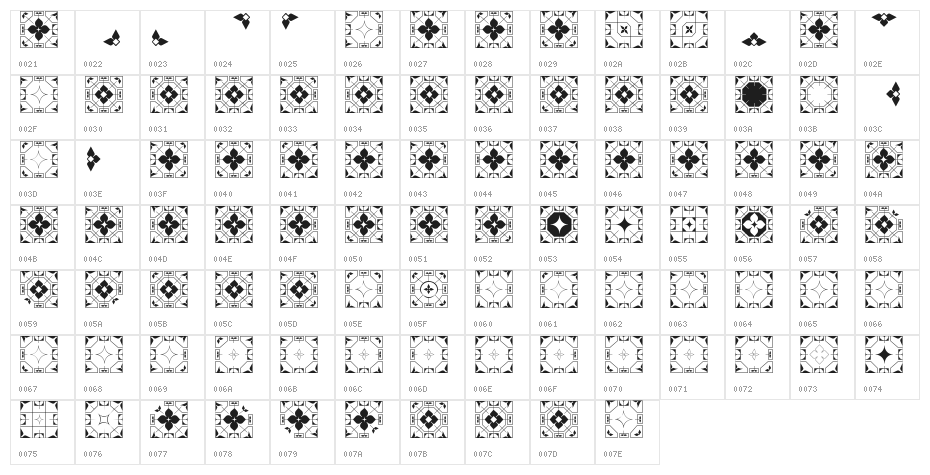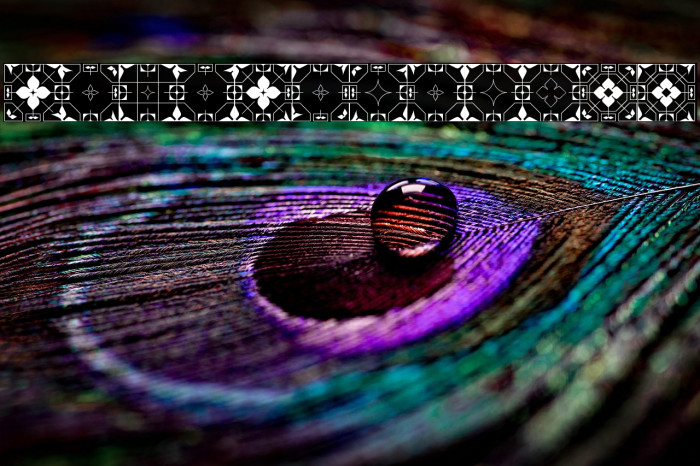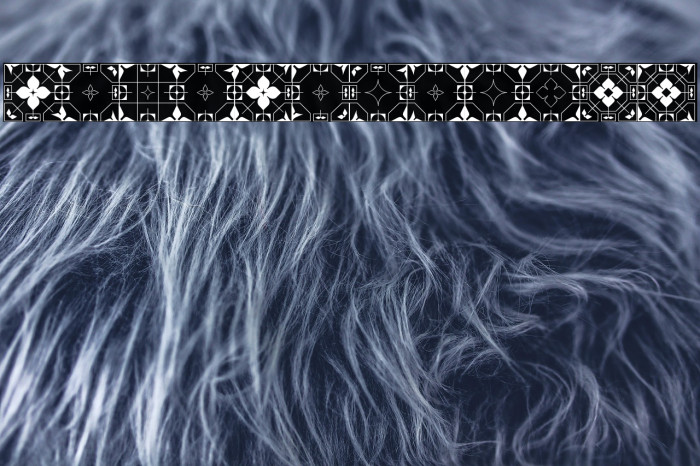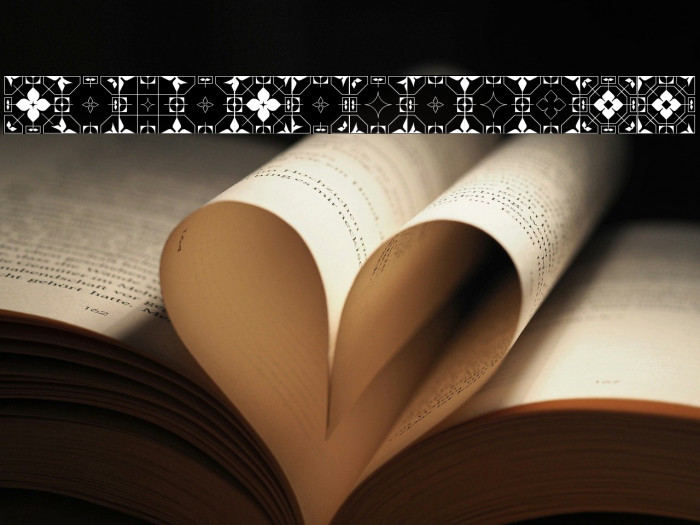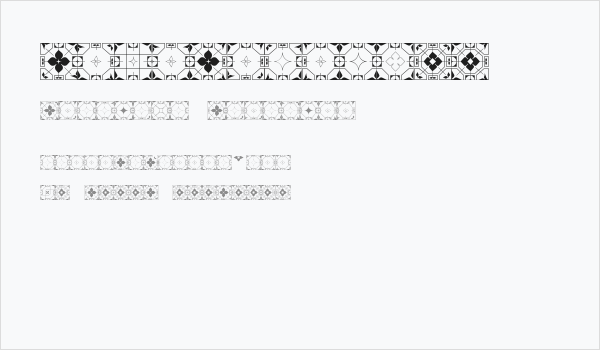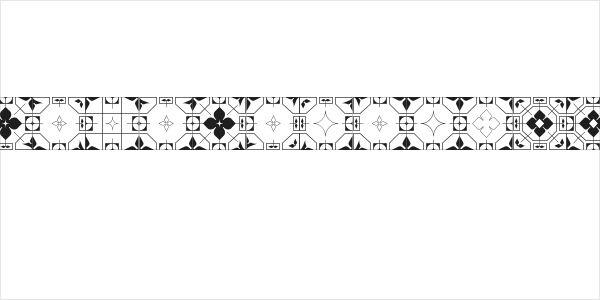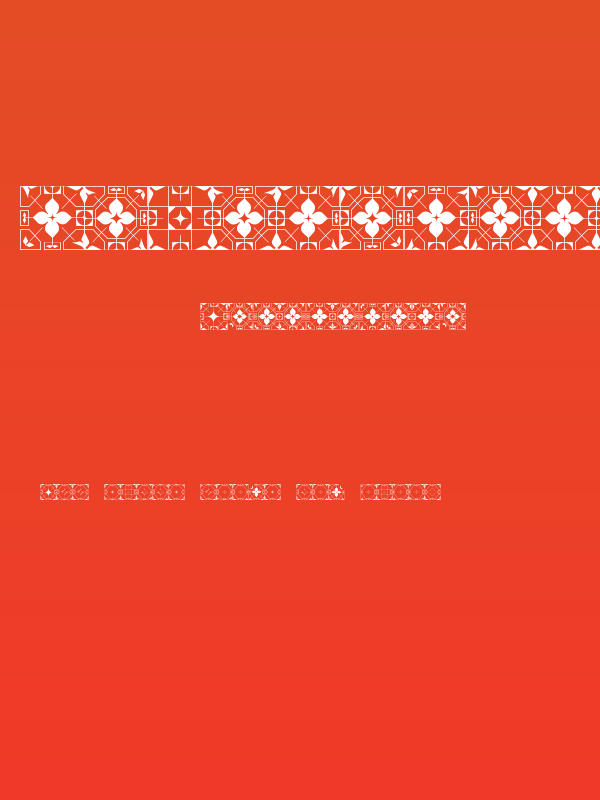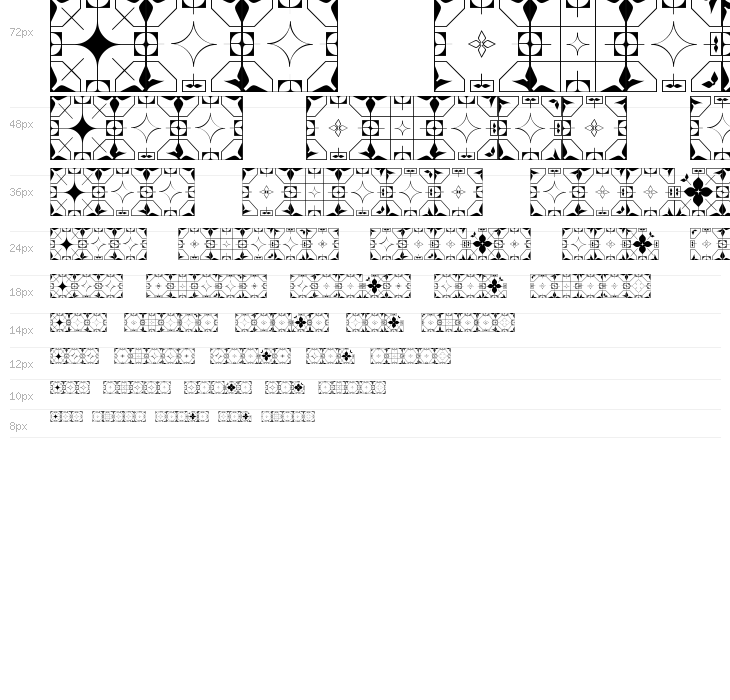
GlukFrames06 Font
GlukFrames06 Description
This is not a valid font. The image appears to contain decorative patterns or borders rather than a traditional font with recognizable alphanumeric characters. The elements are intricate and geometric, featuring repetitive motifs that are more suitable for ornamental purposes rather than text display.
| Use Case | Borders, Graphic Design, Art Projects |
| Proposed Projects | These patterns could be used for decorative borders, graphic design elements, or artistic projects requiring intricate geometric designs. |